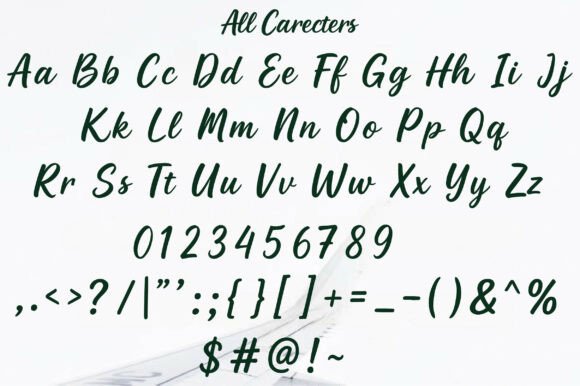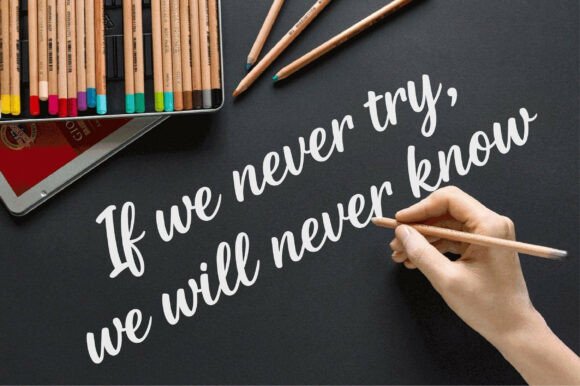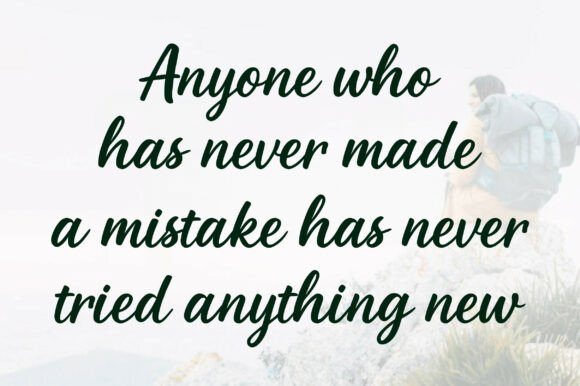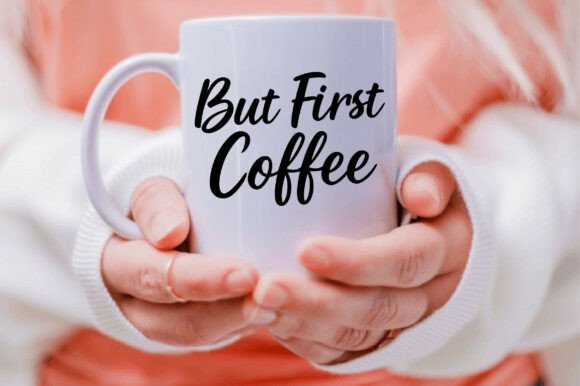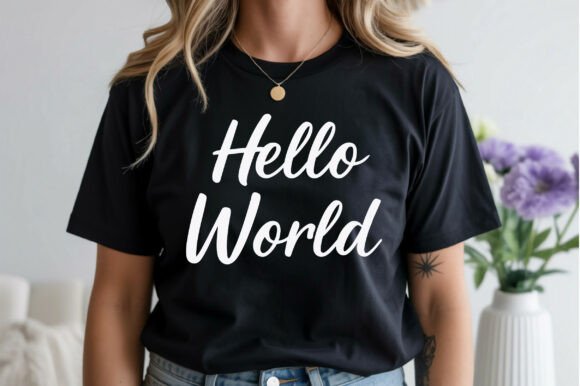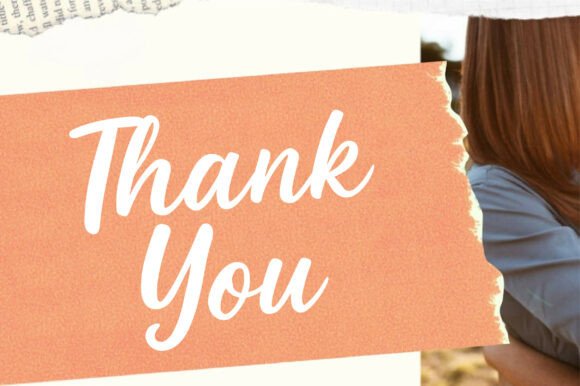
Aventra Font: Elevate Your Designs with a Smooth Handwritten Script
In the world of typography, a well-chosen font can make all the difference in the success of a design project. For designers and crafters looking to add a touch of personality and sophistication to their work, the Aventra font is an excellent choice. This smooth handwritten script typeface is designed to bring a natural and modern feel to a wide range of design applications, from branding and travel quotes to social media posts and product packaging.
The Characteristics of Aventra Font
Aventra is a beautifully crafted font that boasts clean strokes and a casual flow, giving it a friendly and approachable feel. Its smooth, handwritten appearance makes it perfect for designs that require a personal touch. The font includes a comprehensive set of characters, featuring uppercase and lowercase letters, numbers, punctuation, and special characters. This versatility makes Aventra suitable for a variety of design uses, from logos and product packaging to greeting cards and craft projects.
One of the key benefits of the Aventra font is its adaptability. Its unique blend of elegance and informality makes it an excellent choice for a wide range of design applications. Here are just a few examples of how Aventra can be used:
- Branding: Use Aventra to create a distinctive and memorable brand identity that sets your business apart from the competition.
- Travel and Adventure Quotes: Add a touch of wanderlust to your designs with Aventra’s elegant and expressive script.
- Social Media Posts: Make your social media posts stand out with Aventra’s modern and engaging appearance.
- Invitations: Use Aventra to create beautiful and personalized invitations for weddings, parties, and other special events.
- Lifestyle Projects: Add a stylish and sophisticated touch to your lifestyle projects, such as fashion blogs, magazines, and advertising campaigns.
Why Choose Aventra Font?
With so many fonts to choose from, why should you choose Aventra for your design projects? Here are just a few reasons:
- Unique and Memorable: Aventra’s smooth handwritten script is unlike any other font on the market, making it a great choice for designers looking to create something truly unique.
- Versatile: Aventra’s comprehensive character set and adaptable design make it suitable for a wide range of design applications.
- Elegant and Modern: Aventra’s clean strokes and casual flow give it a modern and elegant appearance that’s perfect for designs that require a touch of sophistication.
How to Use Aventra Font in Your Designs
Using Aventra in your designs is easy. Here are a few tips to get you started:
- Pair it with Other Fonts: Aventra pairs well with a variety of other fonts, making it easy to create visually appealing and engaging designs.
- Experiment with Colors: Aventra looks great in a range of colors, from bold and bright to soft and pastel.
- Use it for Headings and Body Text: Aventra’s clear and readable design makes it suitable for both headings and body text.
In conclusion, the Aventra font is a versatile and elegant handwritten script typeface that’s perfect for designers and crafters looking to add a touch of personality and sophistication to their work. With its clean strokes, casual flow, and comprehensive character set, Aventra is suitable for a wide range of design applications, from branding and travel quotes to social media posts and product packaging. Whether you’re looking to create a distinctive brand identity or add a stylish touch to your lifestyle projects, Aventra is an excellent choice.